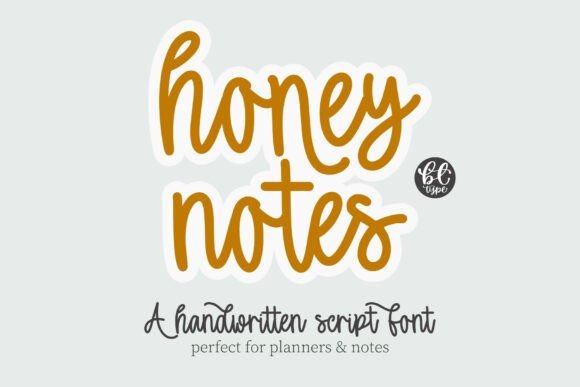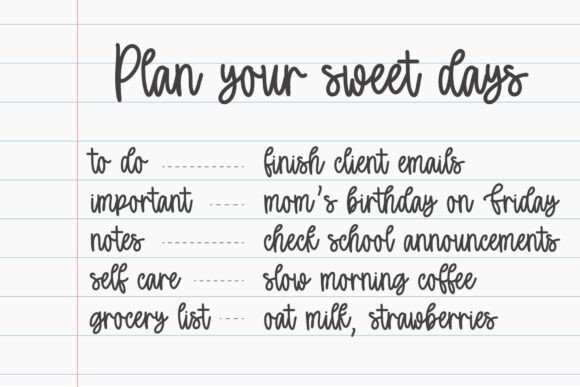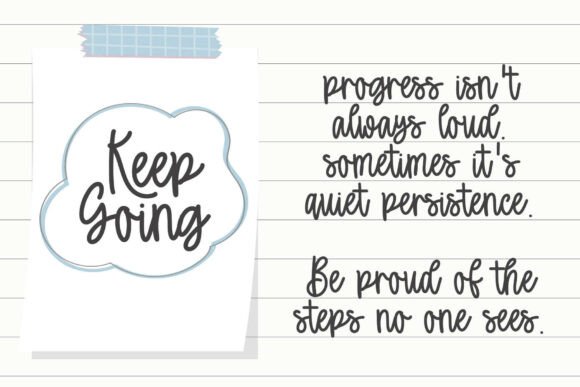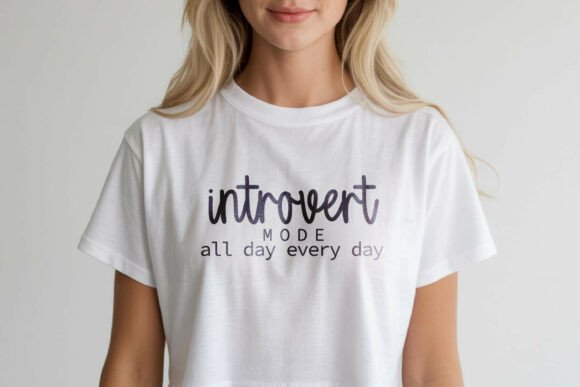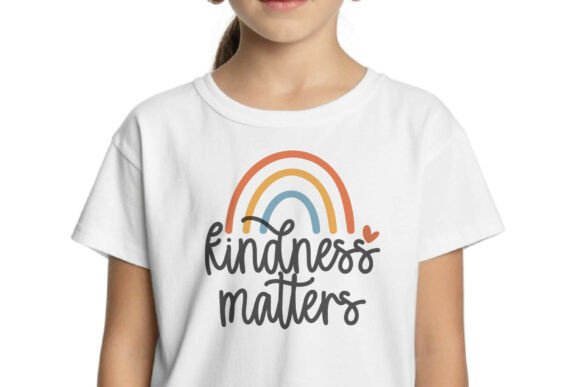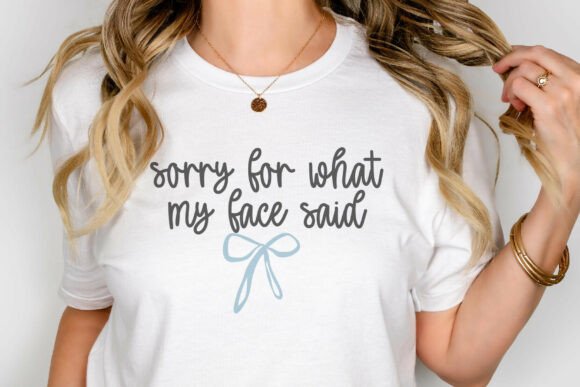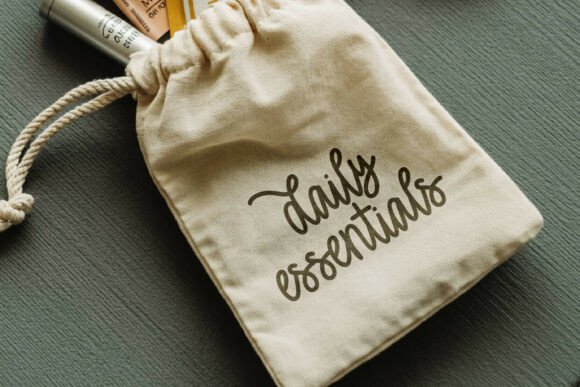
Have you ever found yourself rummaging through your favorite journal, flipping through the pages, and reminiscing about the memories you’ve captured within its worn-out covers? This is exactly the kind of moment that inspired the creation of the Honey Notes Font – a beautifully designed handwritten script font that brings warmth and coziness to your digital creations.
Designed to evoke the feeling of handwritten notes and personalized planners, the Honey Notes Font is a versatile tool for designers who want to add a touch of warmth and approachability to their projects. With its thick, rounded letterforms and smooth connections, this delightful script font is perfect for creating engaging social media graphics, designing stickers for planners, and branding products that aim for a comforting and personalized feel.
Honey Notes Font Key Features
- Font Family: Honey Notes is a beautiful, handwritten script font that is perfect for creating elegant and sophisticated designs.
- Character Set: Includes a wide range of characters, including uppercase and lowercase letters, numbers, and punctuation marks.
- Unique Characteristics: Features a unique, handwritten style with subtle imperfections, giving it a personal and authentic feel.
Honey Notes Font Review
Honey Notes Font is a beautiful script font that I’ve had the pleasure of working with recently. Here’s my honest review.
- ✨ Beautiful Hand-Drawn Feel: Honey Notes Font has a unique, hand-drawn feel that adds a touch of elegance to any design project.
- ✨ Versatile: This font can be used for a wide range of projects, from wedding invitations to branding materials.
- ✨ High-Quality: The font is well-made, with crisp lines and smooth curves.
- ⚠️ Limited Character Set: Honey Notes Font has a relatively small character set, which may limit its use in certain projects.
- ⚠️ Not Ideal for Small Text: Due to its decorative nature, Honey Notes Font may not be the best choice for small text sizes.
Overall, I’m impressed with Honey Notes Font’s unique style and versatility. While it may have some limitations, it’s definitely worth considering for your next design project. Just be sure to check the character set and text size before committing to use it.
The Honey Notes font is ideal for:
- Creatives and designers looking for a unique, handwritten font.
- Bloggers and writers who want to add a personal touch to their content.
- Businesses seeking a distinctive brand identity.
Tips for Getting the Most Out of Honey Notes
To maximize the effectiveness of the Honey Notes font:
- Use it sparingly to create emphasis and visual interest.
- Pair it with other fonts to create a balanced and harmonious design.
- Experiment with different font sizes and styles to achieve the
Alternatives to Honey Notes Font for Designers
Pacifico is a beautiful script font that works well for titles, headings, and short paragraphs. It’s ideal for creating a warm and elegant feel in designs. Pacifico has a similar flowing and cursive style to Honey Notes Font, but it’s more versatile and can be used in a wider range of designs.
Comparison to Honey Notes Font: Pacifico is more elegant and refined, while Honey Notes Font has a more casual and handwritten feel. Pacifico is also more suitable for longer text blocks.
Great Vibes is a modern script font that’s perfect for creating a fun and energetic feel in designs. It’s ideal for titles, headings, and short paragraphs, and works well in a variety of contexts, from casual to formal. Great Vibes has a similar playful and dynamic feel to Honey Notes Font, but it’s more modern and sophisticated.
Q: What is the recommended font size and line height for optimal readability with Honey Notes?
For optimal readability, we recommend using Honey Notes at font sizes between 18-24 points, with a line height of at least 1.2-1.5 times the font size. This will help to ensure that the text remains legible and visually appealing, even at larger font sizes.